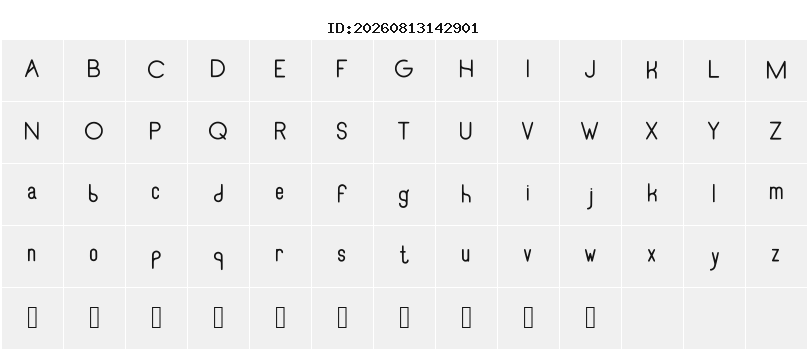
About RecinosScript Regular.ttf
RecinosScript Regular.ttf is a modern, elegant sans-serif font designed for ultimate readability and visual harmony. Perfect for branding, headlines, web design, and print materials.